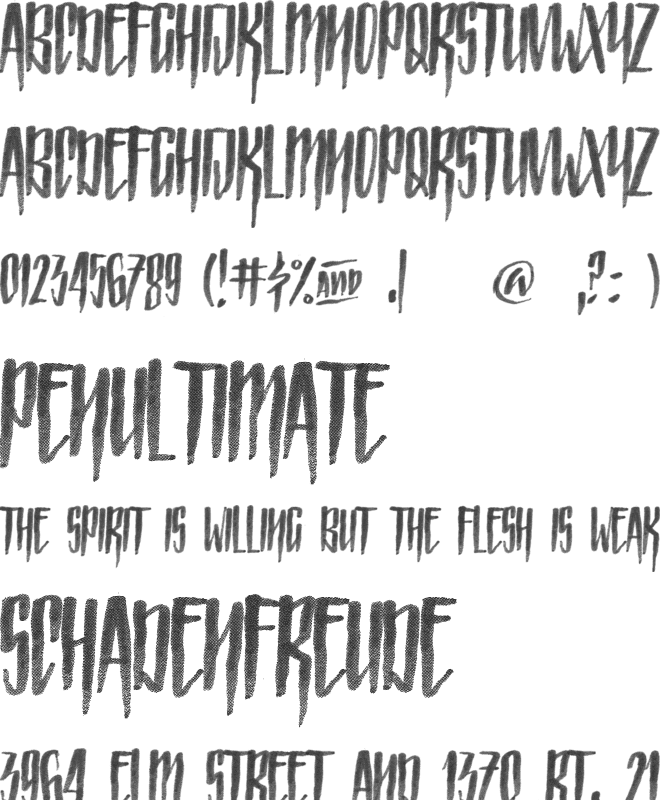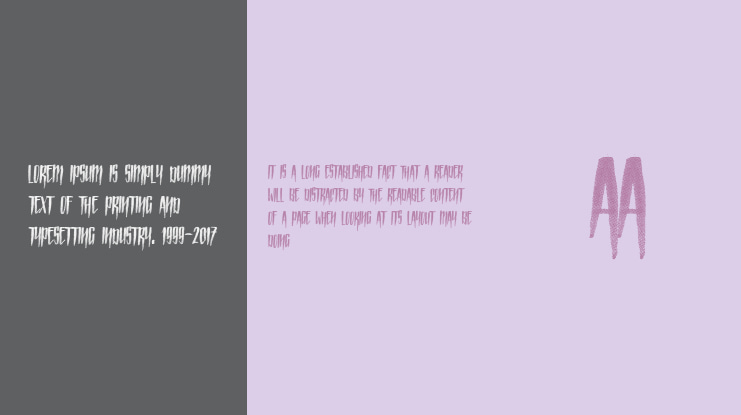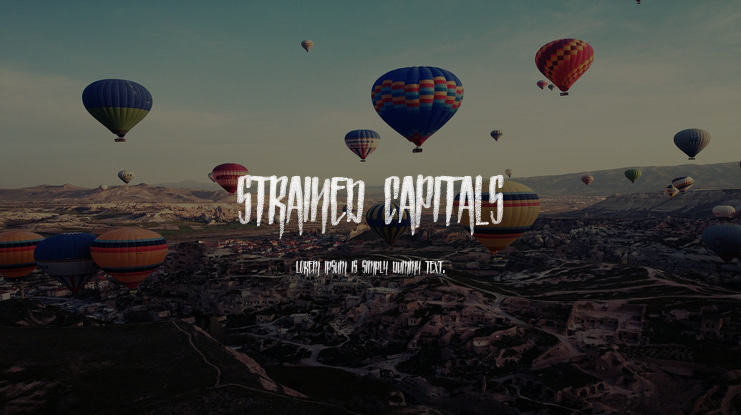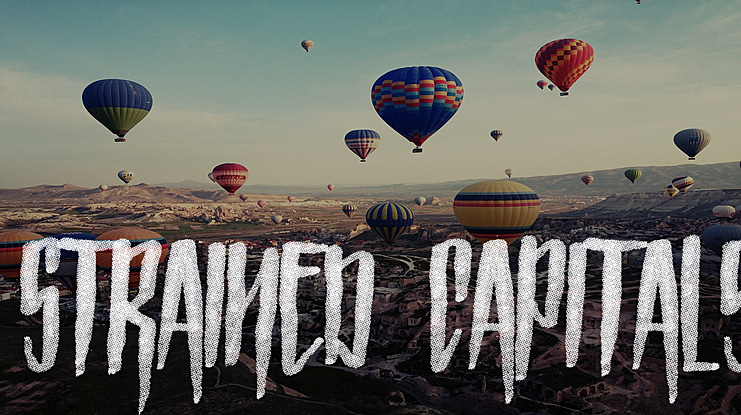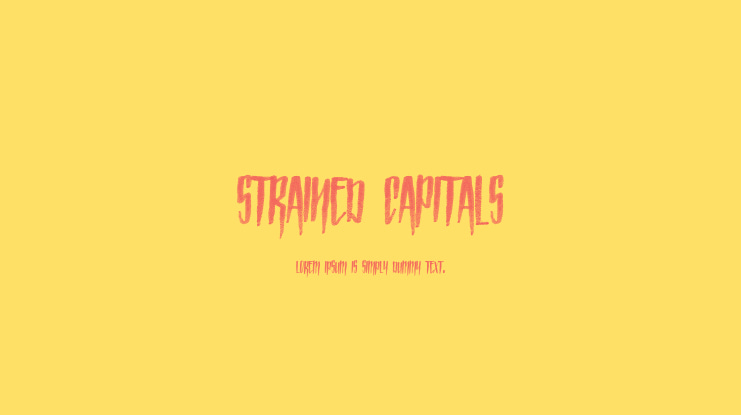
Strained Capitals Font Family
About this font:
Strained is an eye-catching typeface with a mysterious attitude. With dripping structure bearing our trademark - the wet ink effect! From logos with a deathcore theme, bizarre horror posters and vintage dark photographs. Make sure you have fun using this font! Includes: Strained Regular - with Capitals and Lowercase that has several alternates, ligatures and contextual alternates that carefully programmed for that outstanding look. Strained Capitals - the Uppercase letters of Strained in a single font file for that easy editing. Enjoy and be creative!